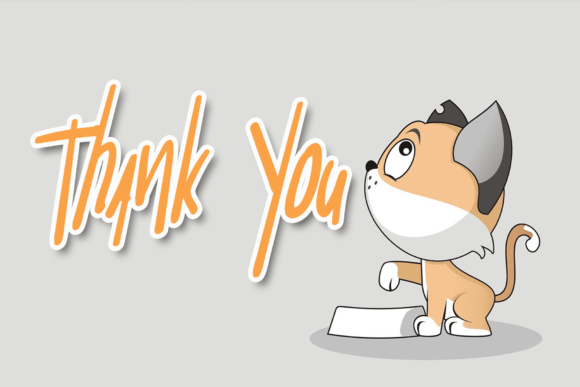
Introduction to Jakarta Handwritten Font
Do you ever find yourself staring at a blank canvas, waiting for the perfect font to spark your creativity? That’s exactly what happened to me the other day, and it led me to discover the stunning Jakarta Handwritten Font. With its elegant, handwritten style, this font has the power to elevate any project and make it truly special.
As a designer, you know how hard it can be to find the perfect font to match your vision. That’s why the Jakarta Handwritten Font is such a valuable resource – it’s not only free to download, but it also boasts a transparent background, making it perfect for adding a touch of sophistication to your creative project. With its high-quality design, this font is sure to become a go-to choice for designers looking to add a personal touch to their work.
- High-quality, unique handwritten font ideal for creative projects
- Each letter has a high level of detail and nuance, making it perfect for titles, headings, and body text
- Designed to be versatile and adaptable, suitable for a wide range of creative projects, from branding to publishing
Honest Review: Jakarta Handwritten Font
I recently stumbled upon the Jakarta Handwritten Font, and I must say it’s been a game-changer for my creative projects. The free download was a nice surprise, and I appreciate that it comes with a transparent background, making it super easy to work with.
What works well: ✨ The font is incredibly versatile and can be used for a wide range of creative projects, from social media graphics to blog posts. The high quality of the font is also impressive, and it’s perfect for designers who want a unique and elegant look.
However, there are a few limitations: ⚠️ The font is not ideal for large blocks of text, as it can be a bit difficult to read. Additionally, the font may not be compatible with all operating systems or software.
Overall, I’m thoroughly impressed with the Jakarta Handwritten Font. It’s a fantastic design resource that’s perfect for adding a touch of elegance to your creative projects. If you’re looking for a high-quality, unique font, I highly recommend giving it a try!
To get the most out of the Jakarta Handwritten Font, experiment with different font sizes, colors, and combinations. Use it to create eye-catching headings, titles, and quotes.
The Jakarta Handwritten Font is perfect for:
- Food and beverage branding
- Travel and adventure marketing materials
- Personalized gifts and cards